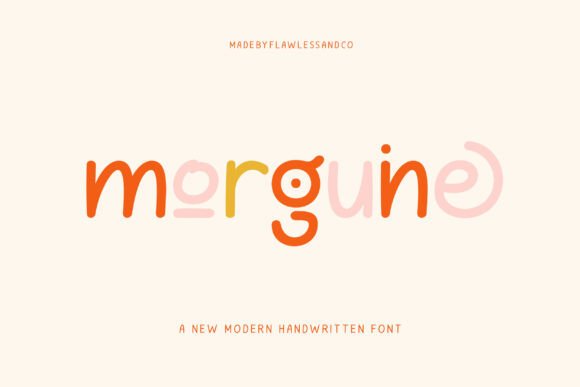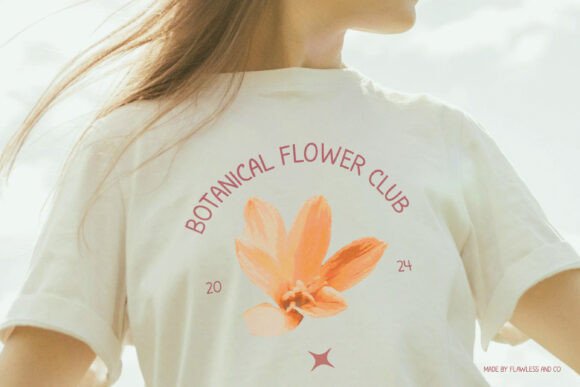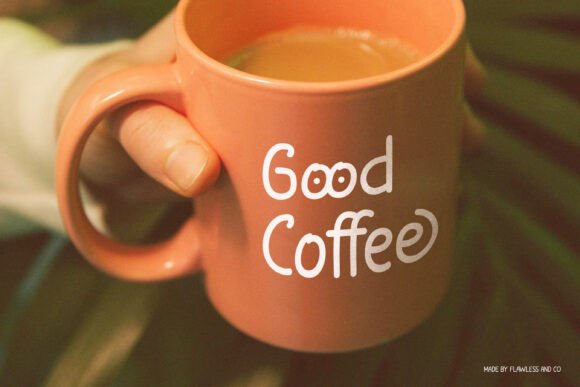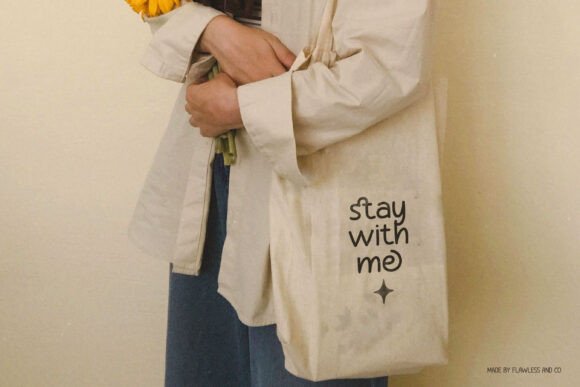
Morguine Font: Cute Handwritten Sans Serif for Branding & Social Media
About the Morguine Font
Presenting Morguine Font, a unique and stylish typeface that will make your work stand out. Introducing Morguine, a modern handwritten sans serif font that blends elegance with a natural touch. With its smooth strokes and contemporary feel, Morguine is perfect for branding, logos, social media, and creative projects. Add a stylish, personal touch to your designs with this beautifully crafted font!
Morguine excels in headlines, short text blocks, and logos where its elegant, yet slightly informal, character shines. It’s ideally suited for branding projects aiming for a sophisticated yet approachable feel, particularly those in fashion, beauty, or lifestyle sectors. Avoid using Morguine for large bodies of text or UI elements; its handwritten nature can hinder readability in extended paragraphs.
Pairing Morguine with a clean sans-serif like Montserrat for body copy creates a strong contrast and balanced visual hierarchy. For a more playful feel, consider pairing it with a geometric sans-serif such as Futura. A classic serif like Garamond can add a touch of traditional sophistication, complementing Morguine’s modern elegance.
Morguine’s overall personality is sophisticated yet approachable – modern and elegant, with a hint of friendly informality. This makes it a versatile choice for brands seeking a balance between style and approachability.